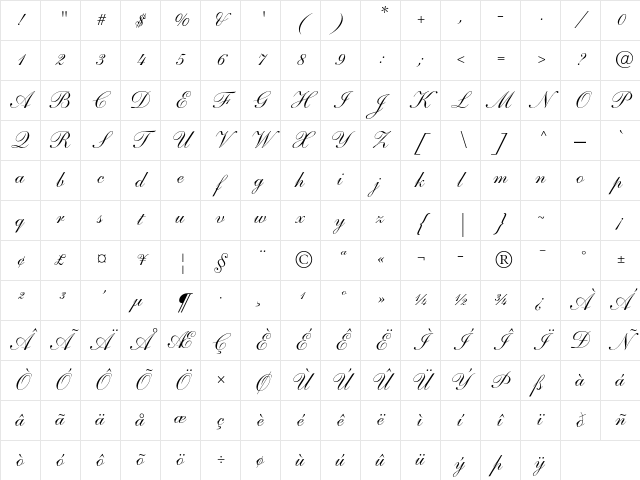
Shelley Script LT Std Regular
Designer: Matthew Carter
Design Context for Shelley Script LT Std
Shelley Script LT Std flows with the natural rhythm of handwritten lettering, making it ideal for designs that call for warmth and personal expression. Its slender proportions lend an understated elegance to any composition.
Font Pairing: Combine Shelley Script LT Std with a simple geometric sans for maximum contrast - the tension between flowing curves and clean structure is a classic typographic pairing.
Pro Tip: Use Shelley Script LT Std for short runs of text - names, titles, or taglines. Extended body copy in script faces tires the eye quickly.